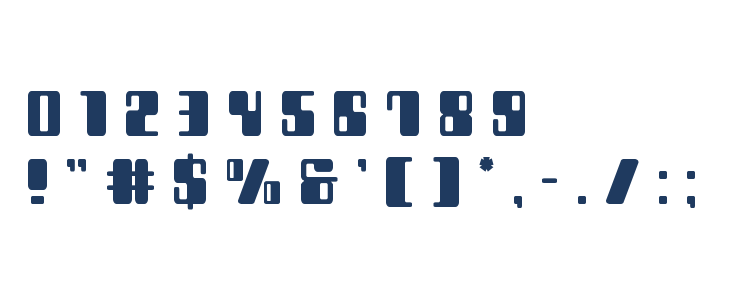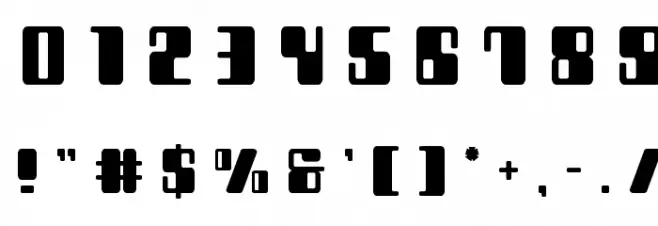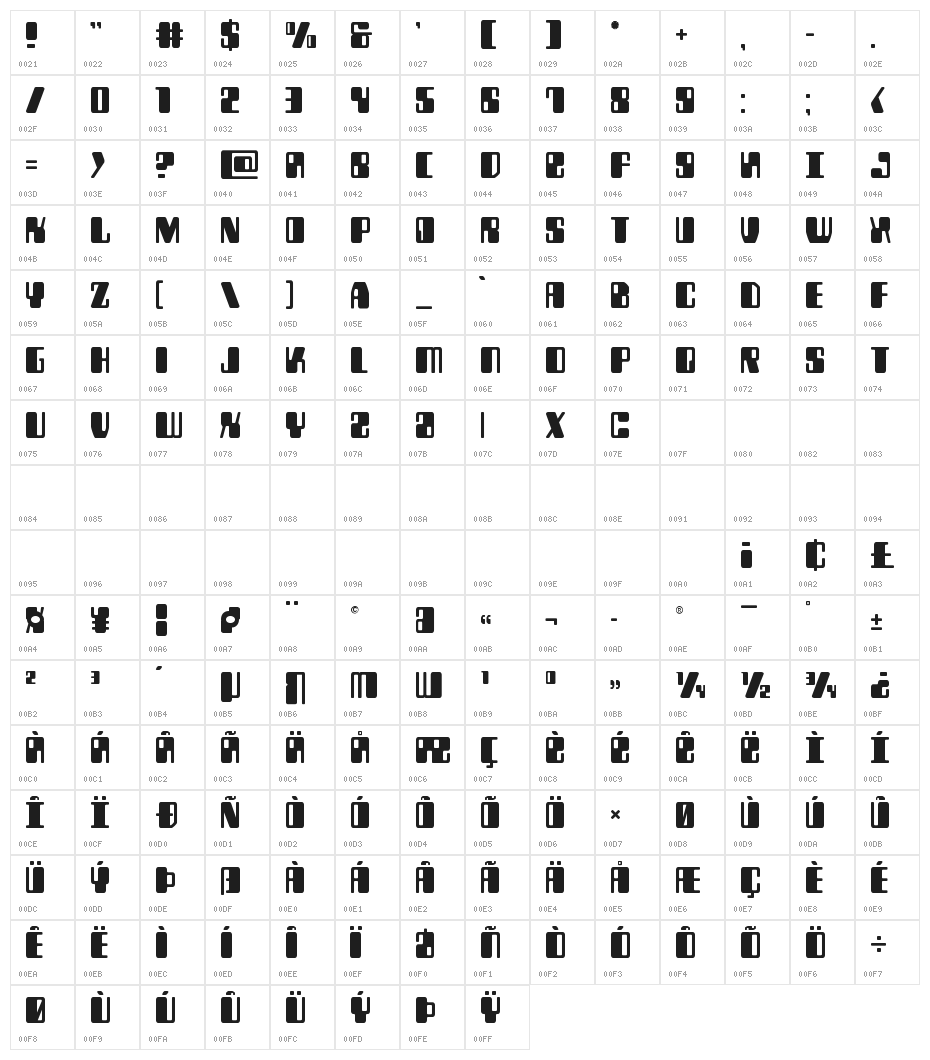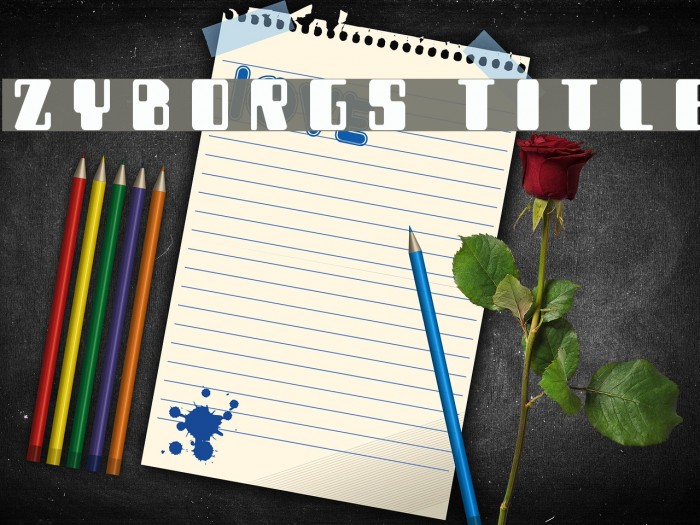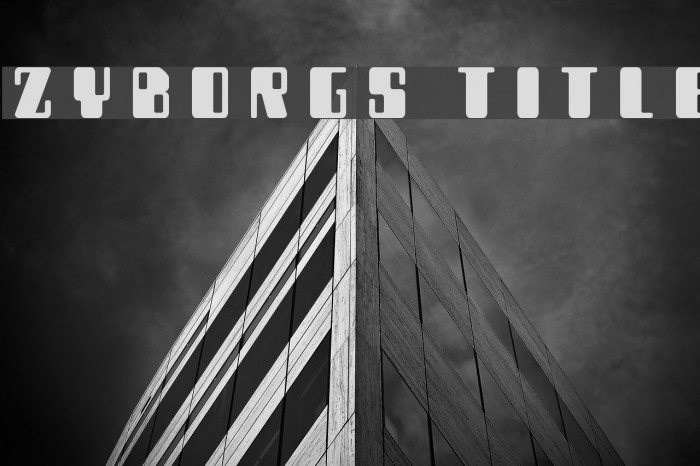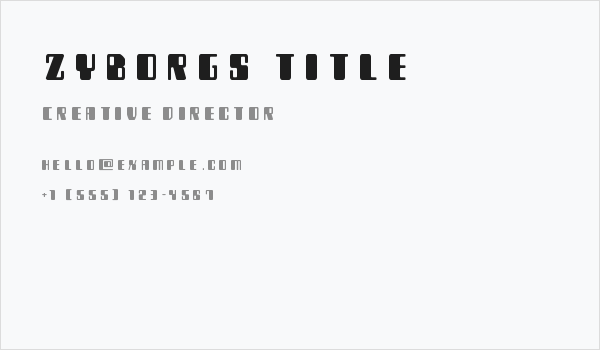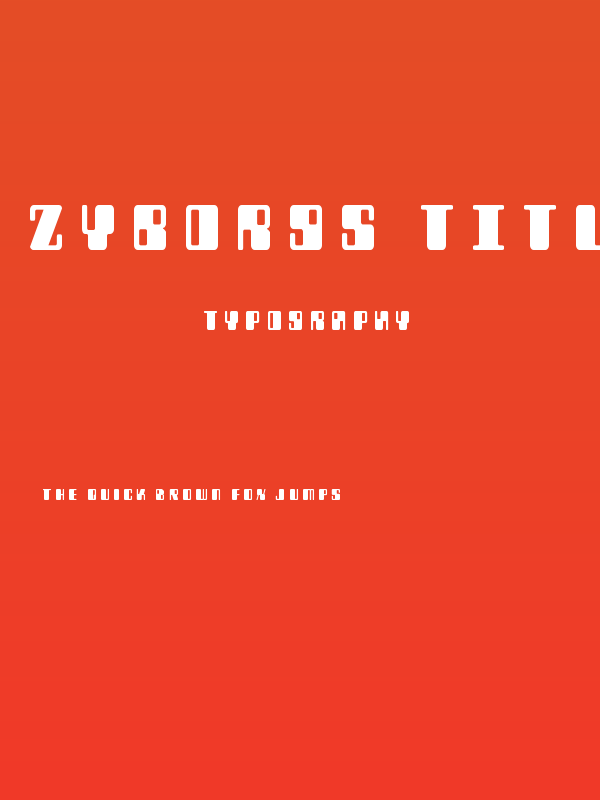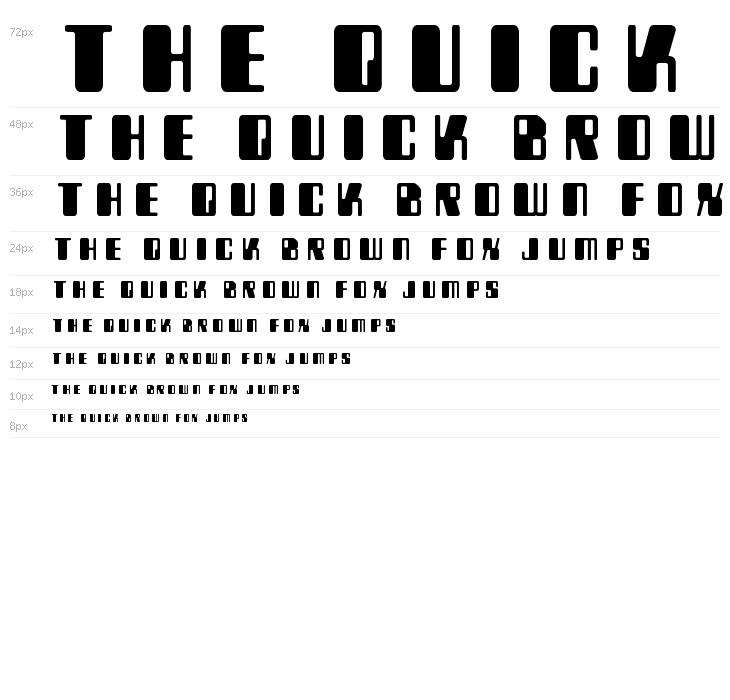
Zyborgs Title Font
Zyborgs Title Description
This font features a bold, futuristic style with a strong geometric influence. The characters are designed with a block-like appearance, incorporating sharp angles and straight lines that give it a modern, digital feel. The uppercase and lowercase letters maintain a consistent height, contributing to a uniform look. The numbers and special characters follow the same design principles, ensuring coherence across all glyphs. The font's unique style makes it suitable for projects that require a tech-savvy or avant-garde aesthetic.
Overall StyleFuturistic
Proposed ProjectsIdeal for tech branding, video game titles, sci-fi movie posters, and digital interfaces.